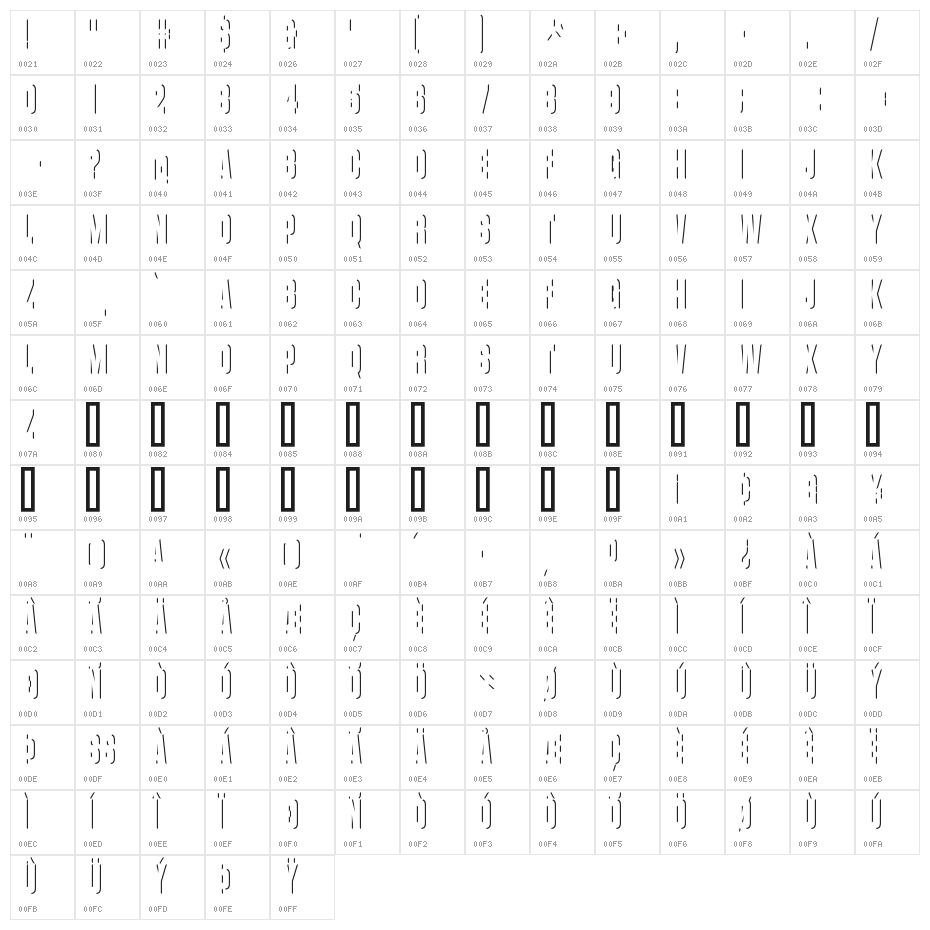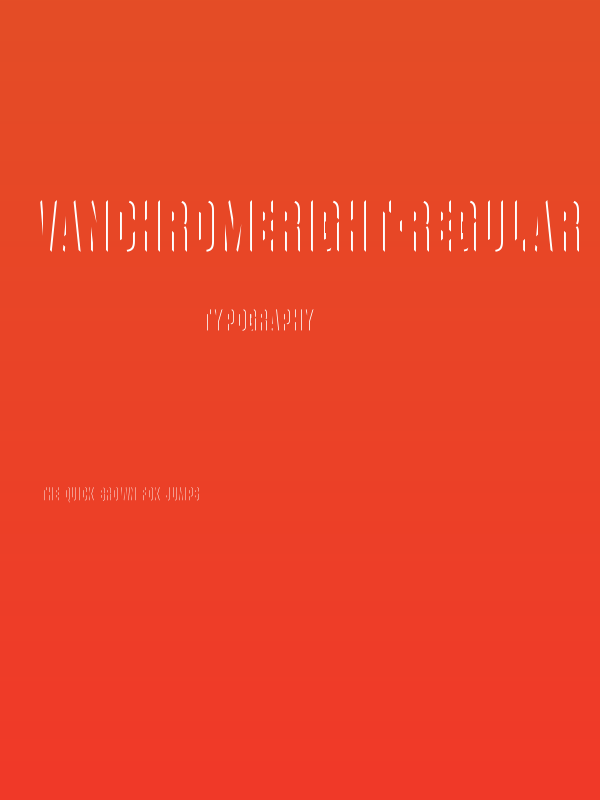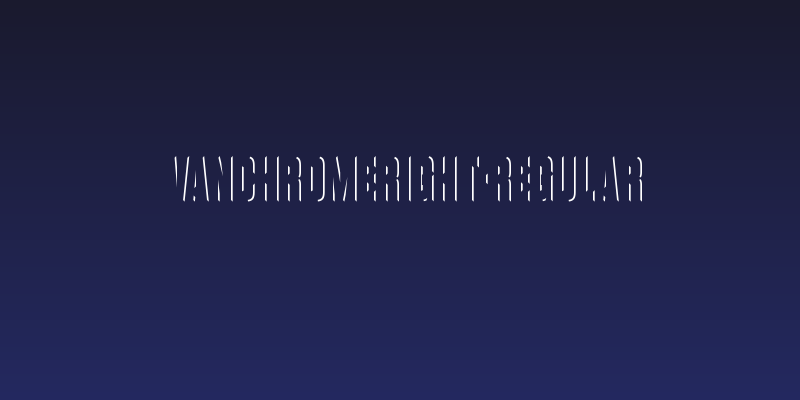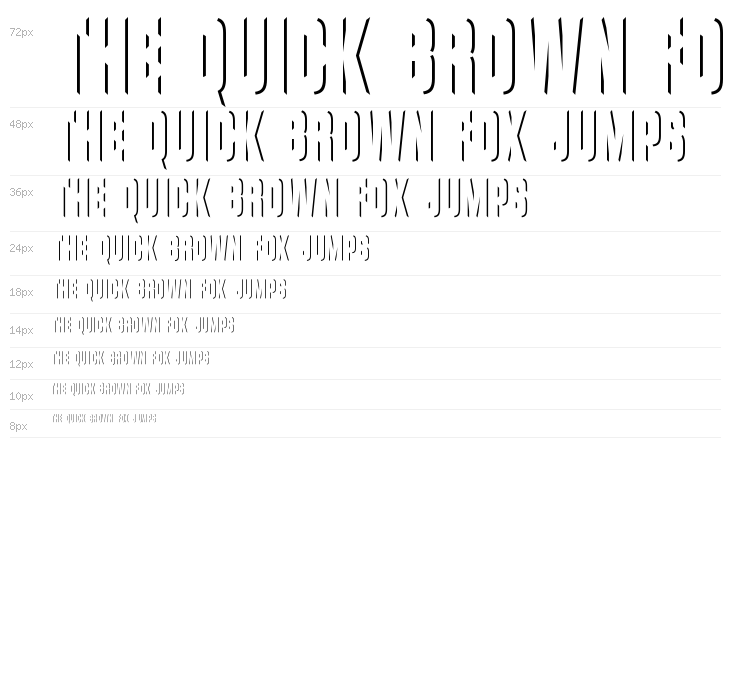
VanchromeRight-Regular Font
VanchromeRight-Regular Description
This font features a unique stencil-like design with a modern twist. The characters are tall and narrow, with sharp, angular cuts that create a sense of movement and dynamism. The negative space within each letter adds an intriguing visual effect, making it stand out in any design. The uppercase and lowercase letters maintain a consistent style, while the numerals and special characters complement the overall aesthetic. This font is perfect for projects that require a bold and contemporary look.